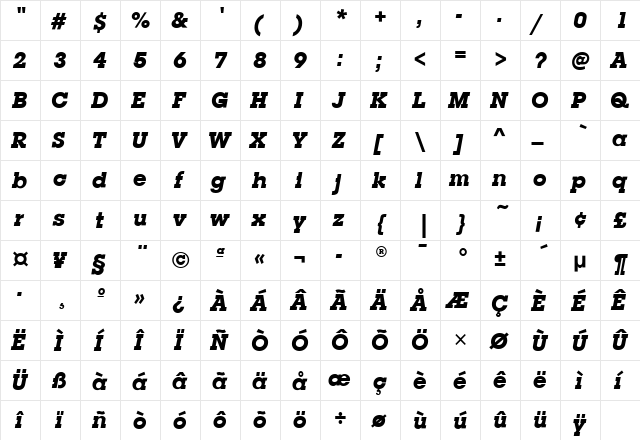
LubalinGraphMdITC Bold Italic Font Preview
Design Context for LubalinGraphMdITC Typeface
LubalinGraphMdITC takes a measured approach to typography — its balanced proportions and neutral character make it a reliable workhorse for both digital and print work. Its italic angle brings a sense of urgency and motion to the letterforms. Its bold stroke weight gives it real presence on the page.
Pro Tip: Try LubalinGraphMdITC for annotation and caption copy alongside an upright companion — the contrast in angle creates a dynamic but ordered typographic system.